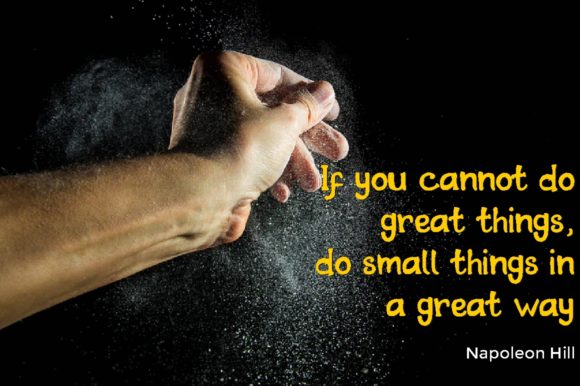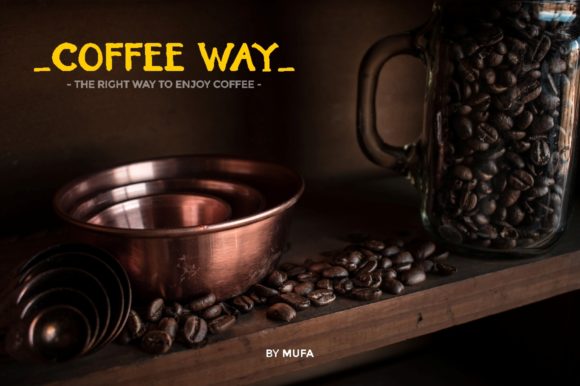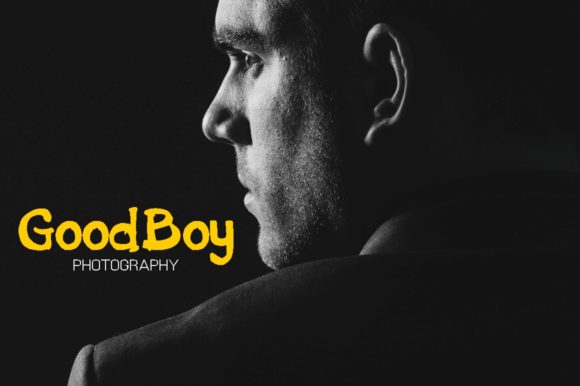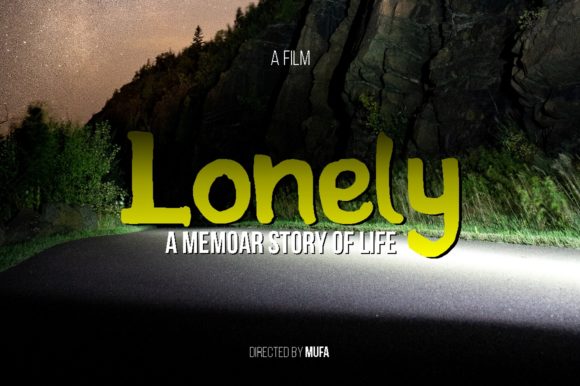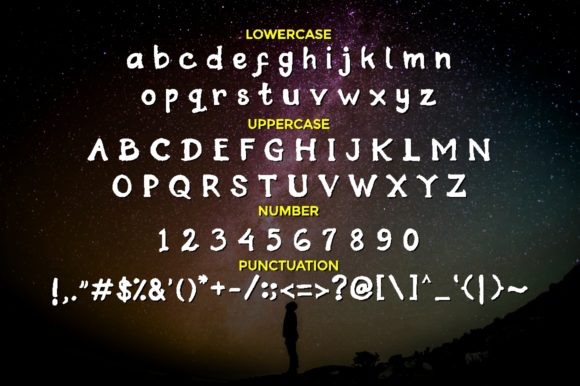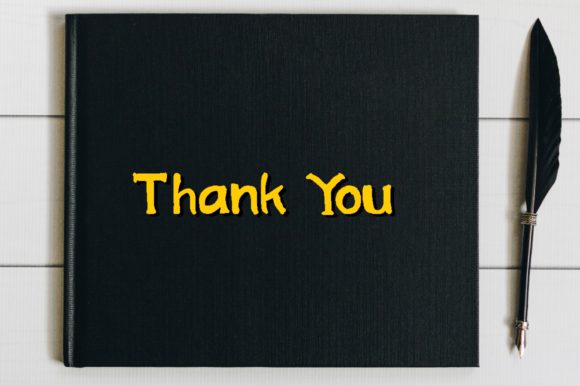
Introduction to Montanaway Font
Montanaway is a simple and neat lettered display font.
Add this font to your creative ideas and notice how it will make them stand out .